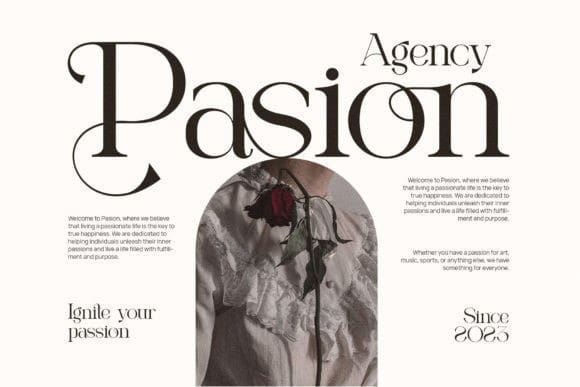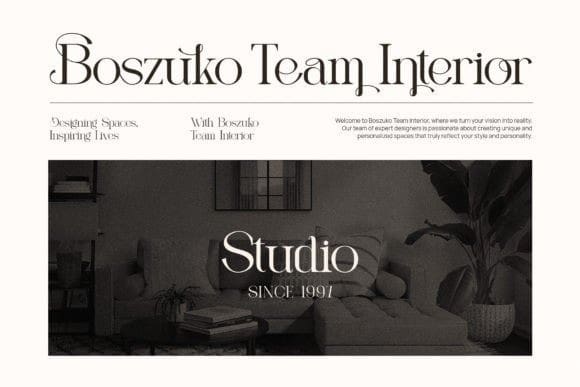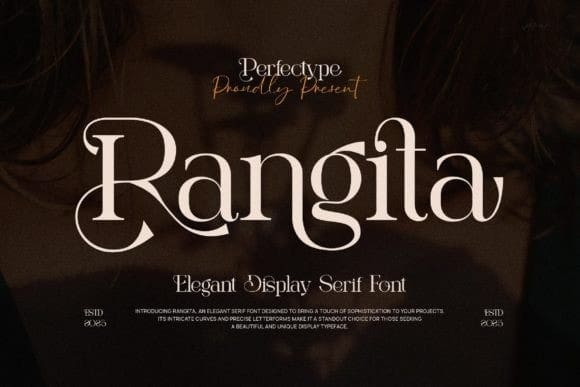
Rangita Font
Rangita Font, is a unique and very elegant font for branding and logo designs Elegant serif typeface combined with a classy and modern style. This type of font is very suitable for your various needs such as branding projects, logos, wedding designs, social media posts, advertisements, product packaging, product designs, labels, photography, watermarks, invitations, stationery, and any project, created with high level of readability. you will not be disappointed if you buy this font!!